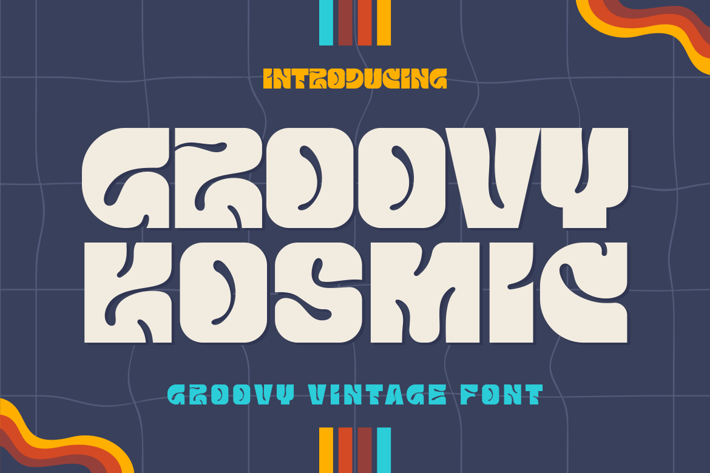
Groovy Kosmic - Unique & Bold Font
Presenting Groovy Kosmic Is A Modern Pixel Font.
Can Make It Easier To Convey The Message In Your Design. Font Is Suitable For Logo, Labels, Badge, Branding, Magazine, Poster, Title, Gigs, Covers And Etc. Our Fonts Have Uppercase & Lowercase, Numeral & Punctuation, And Opentype Features. For Amazing Designs You Can Mix With Other Fonts As A Complement.